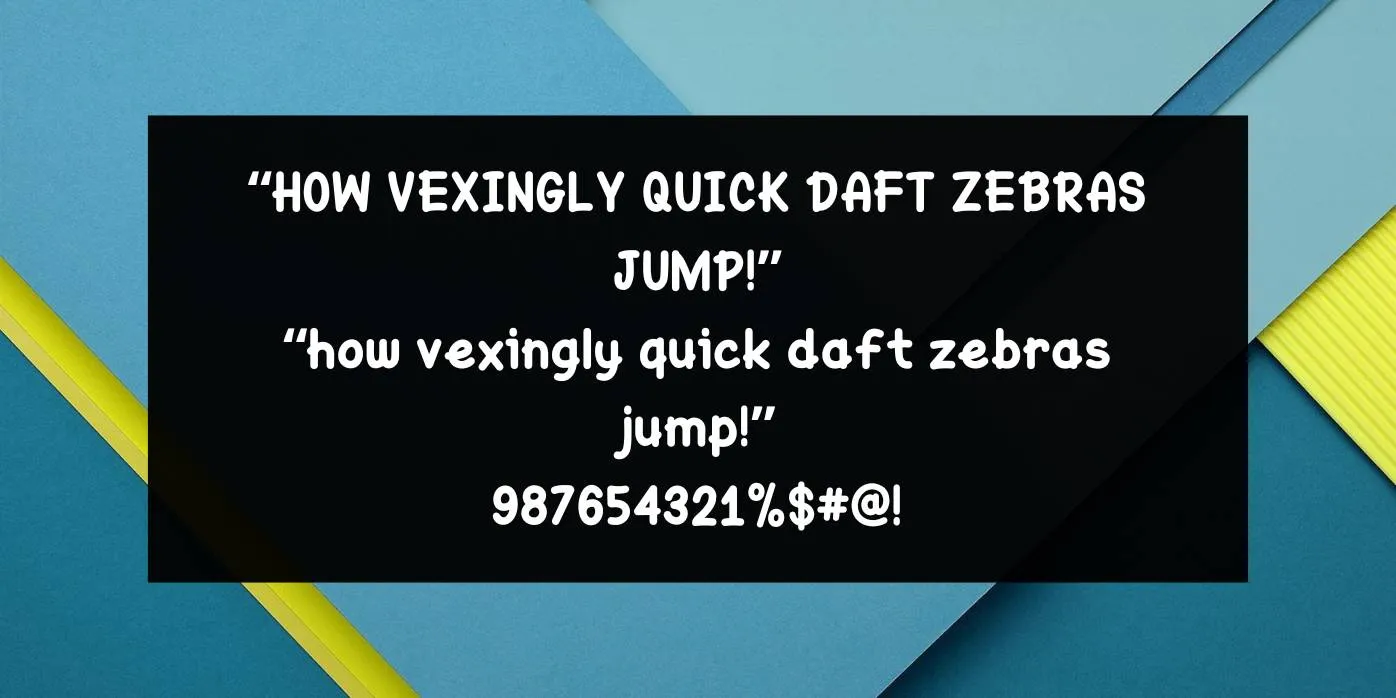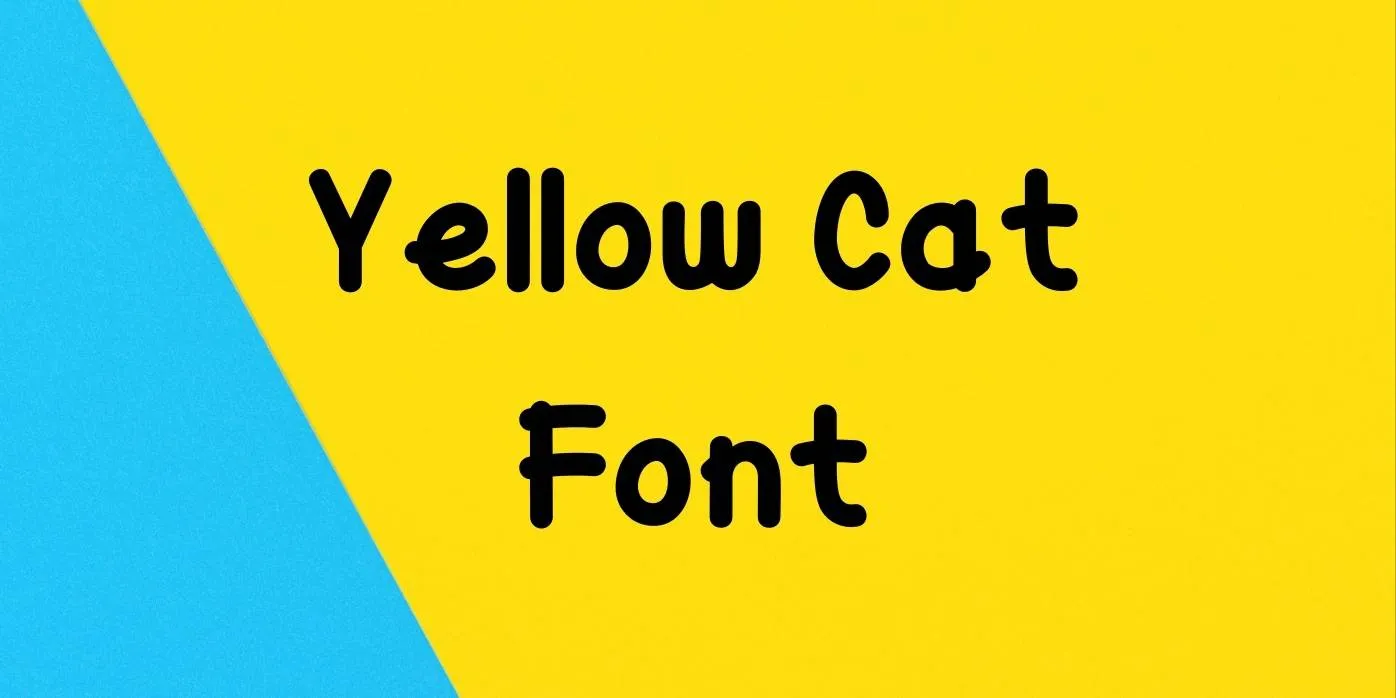
Yellow Cat Font
Polah Type designed this typeface. Yellow Cat Font is a comic-type font that is free for personal projects. This font style has very amazing texture include uppercase, lowercase, glyphs, punctuation and numbers. This typeface support an online tool that is called a generator tool, which works for converting any font into this simplest font without downloading the zip file.